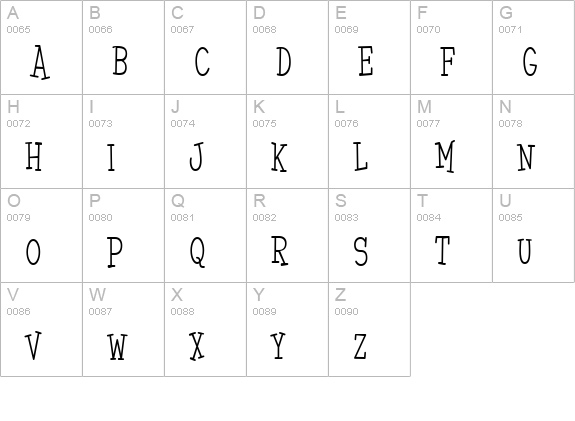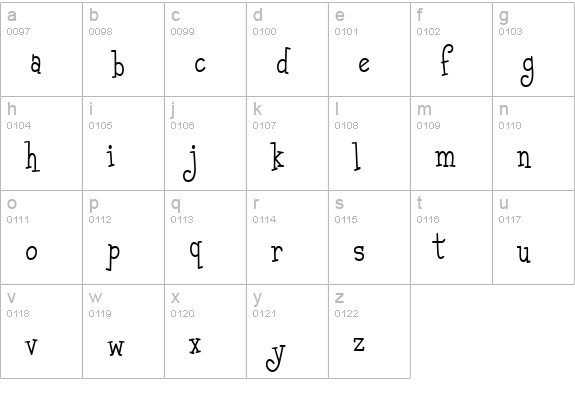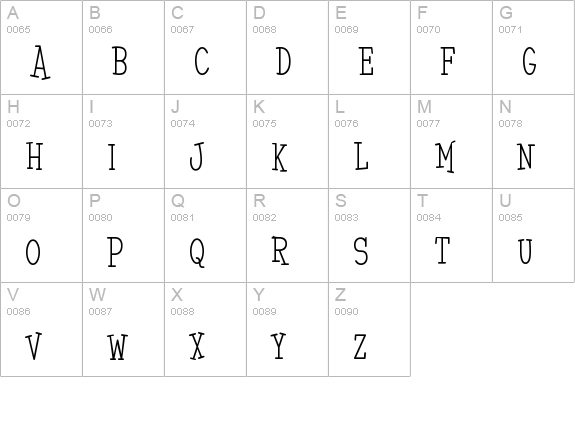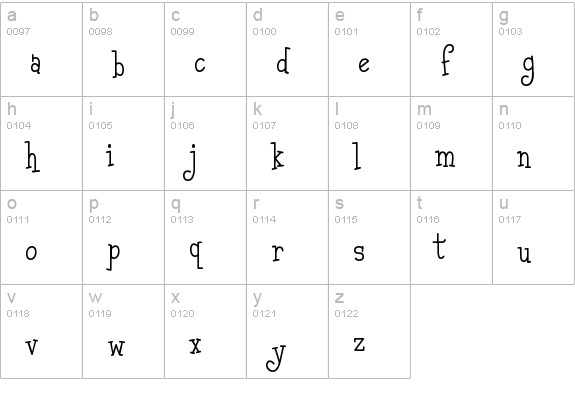
Malihini Tahitian BTN Cond Lt is a distinctive, condensed-width variant in the Malihini typeface family \xE2\x80\x94 well suited to design and typography projects.
Malihini Tahitian BTN Cond Lt font is a stunning display font that exudes elegance and sophistication. Its clean and modern design makes it perfect for a wide range of design projects, from logos and branding to headlines and invitations. This font features a condensed light weight, which adds a touch of uniqueness and versatility to any design. Its slender and graceful letterforms are beautifully crafted, with flowing curves and sharp angles that create a harmonious balance. What sets Malihini Tahitian BTN Cond Lt font apart is not just its stunning aesthetics, but also the fact that it is freely available to download. You can easily access this font at FontsMarket.com, where you'll find a vast collection of high-quality fonts for all your design needs. Whether you're a professional designer or a hobbyist, Malihini Tahitian BTN Cond Lt font is a must-have in your font library. Its timeless appeal and versatility make it a perfect choice for various design projects. So don't miss out on the opportunity to enhance your creations with this amazing font – download it for free at FontsMarket.com today!